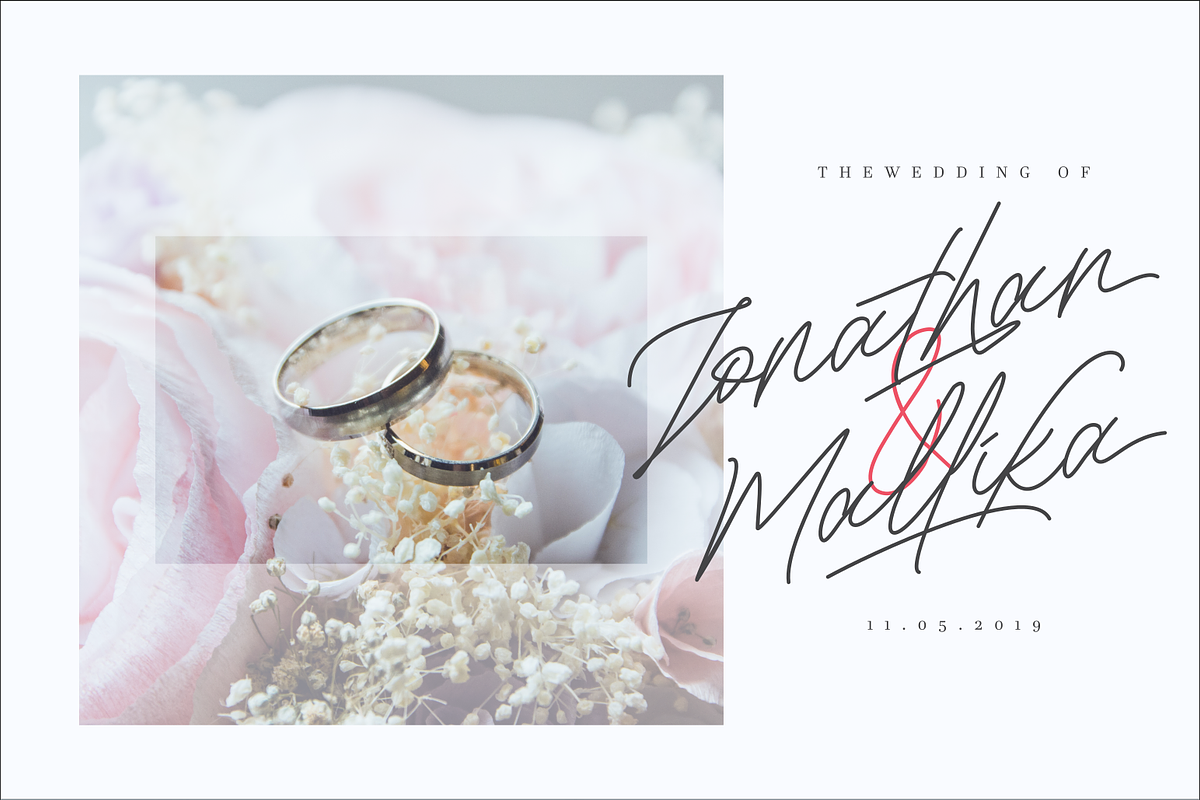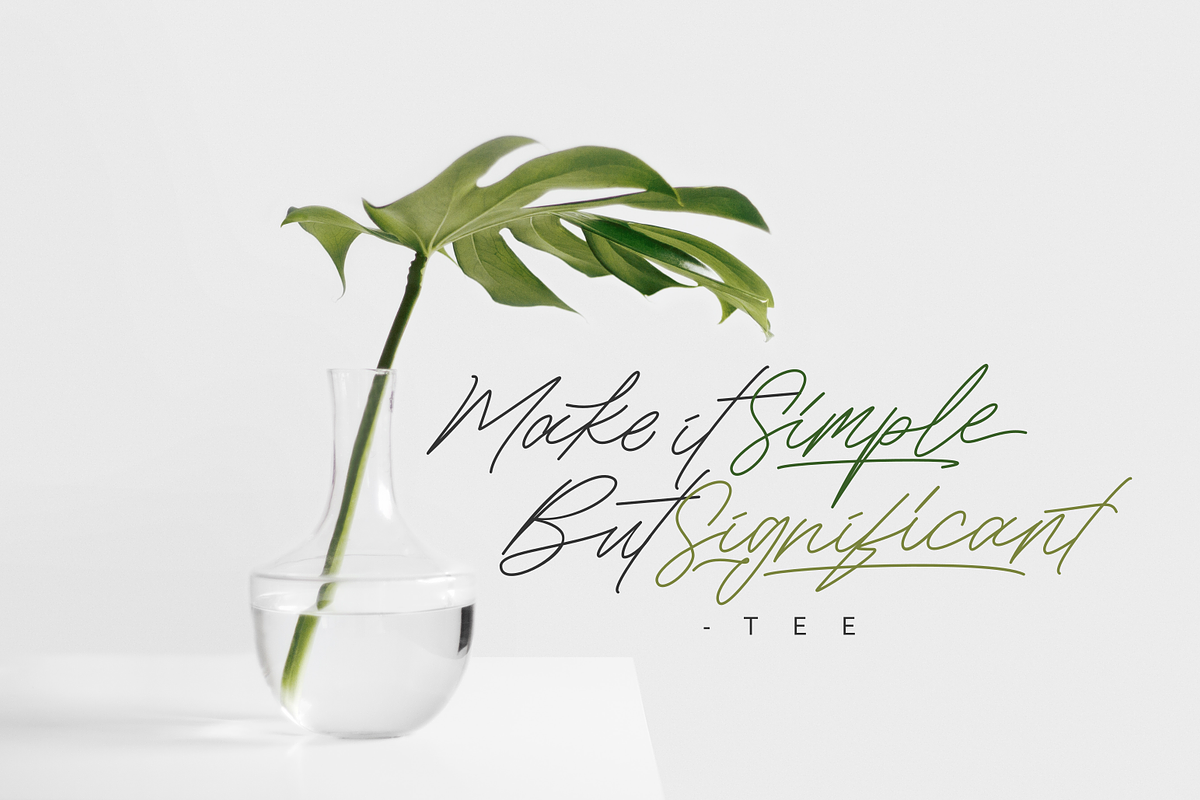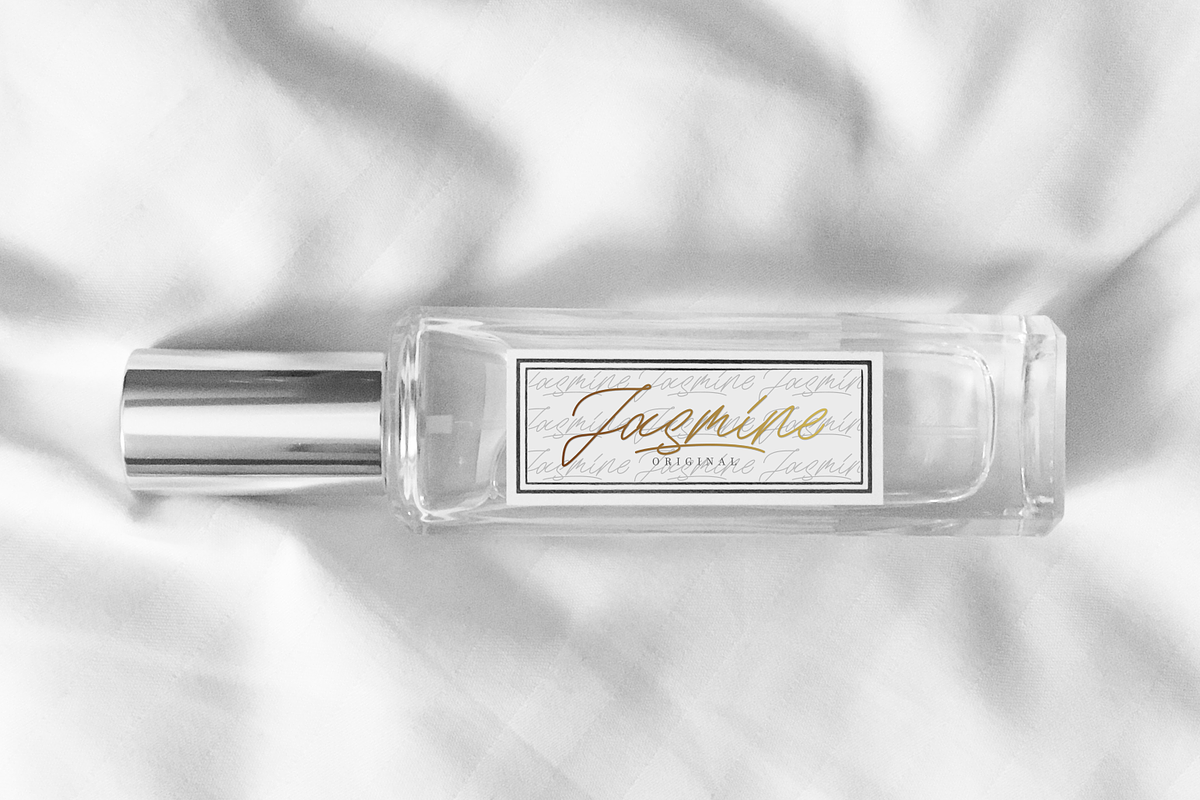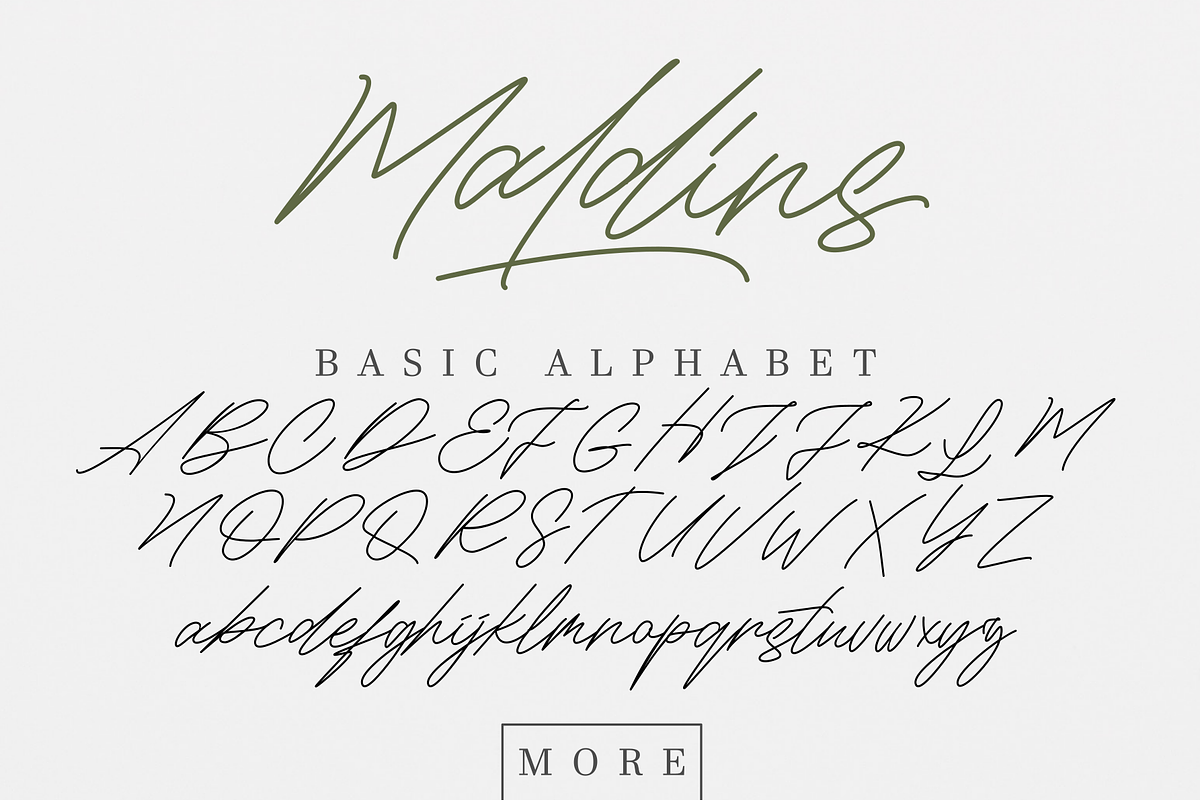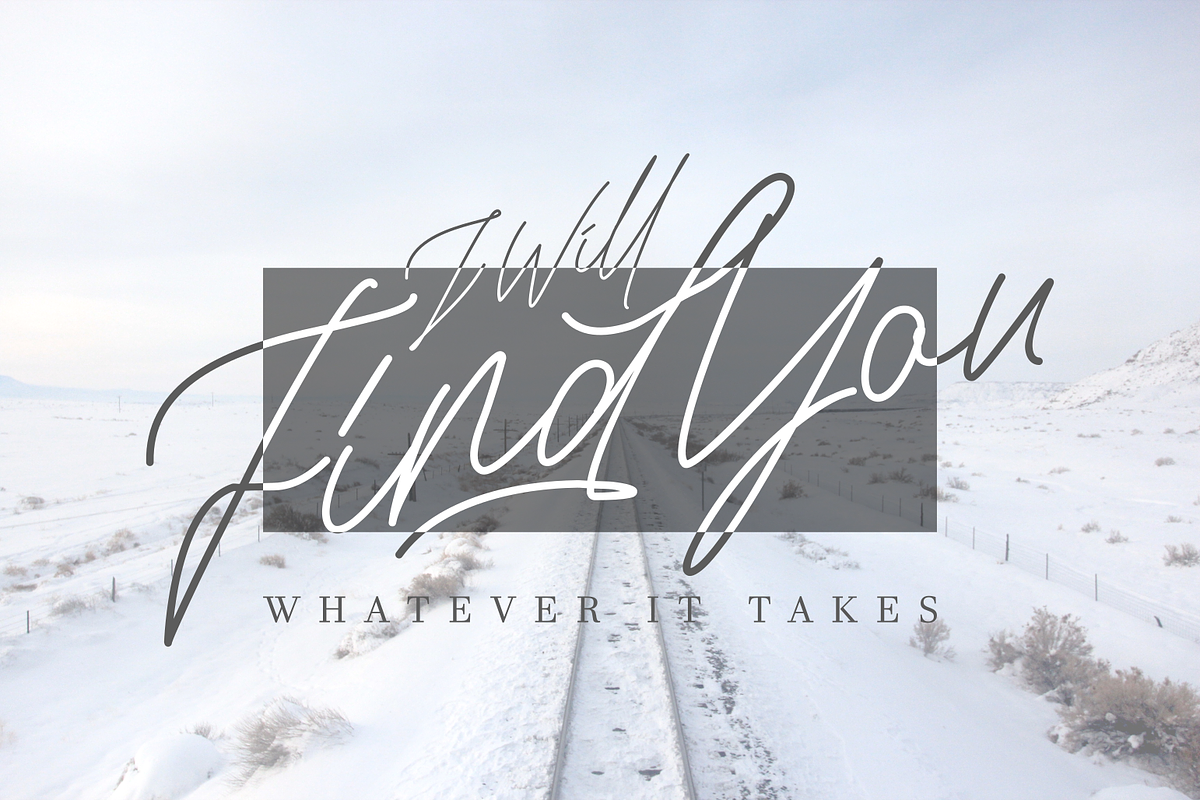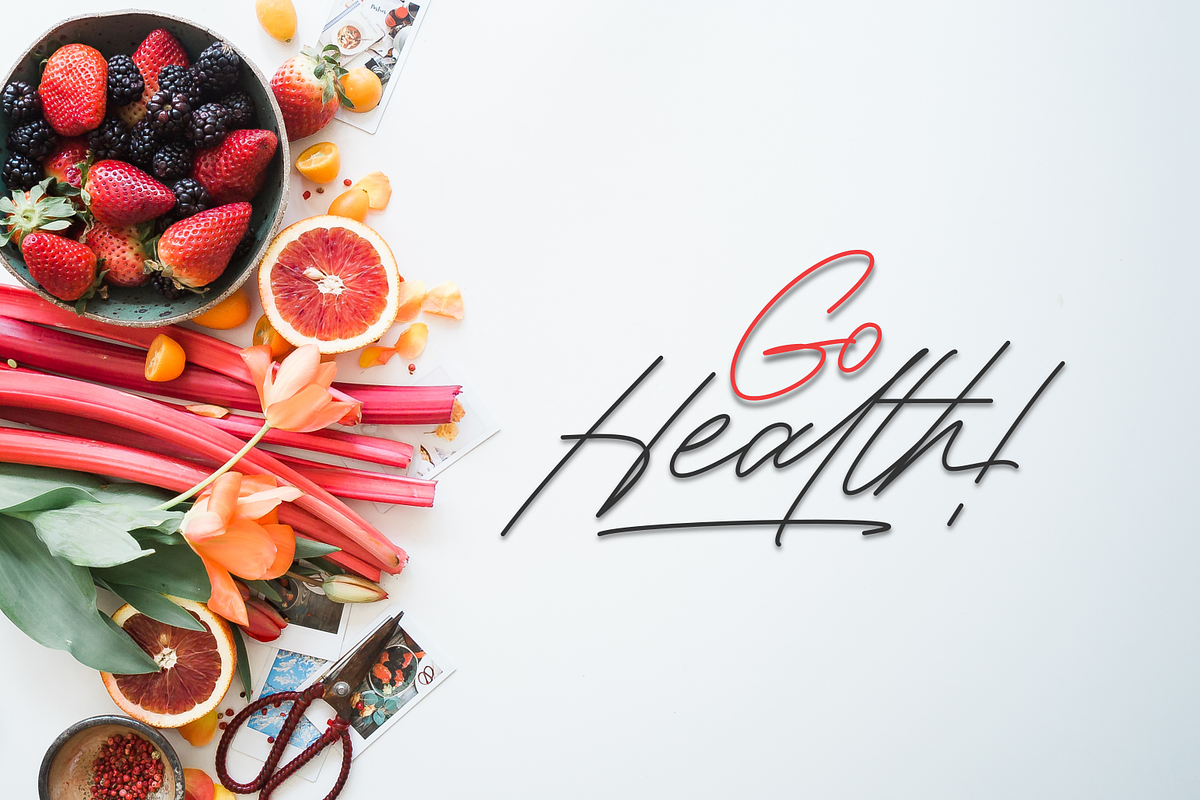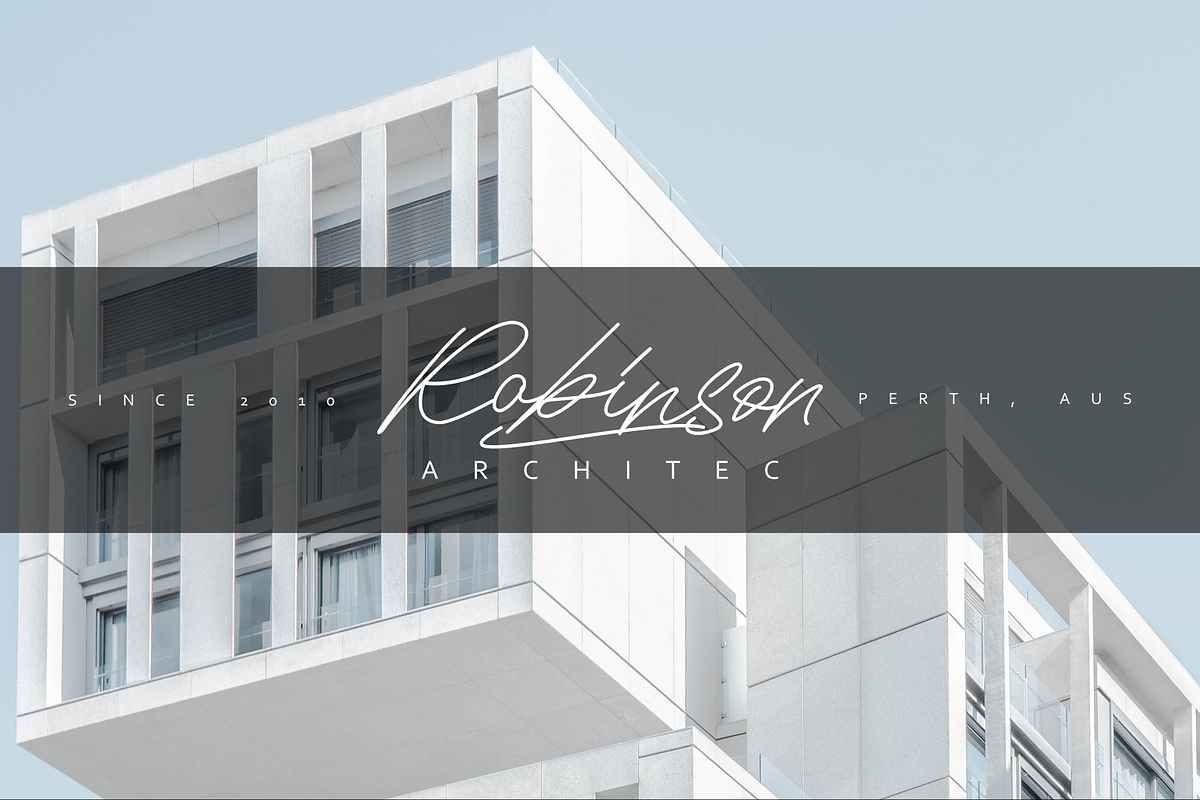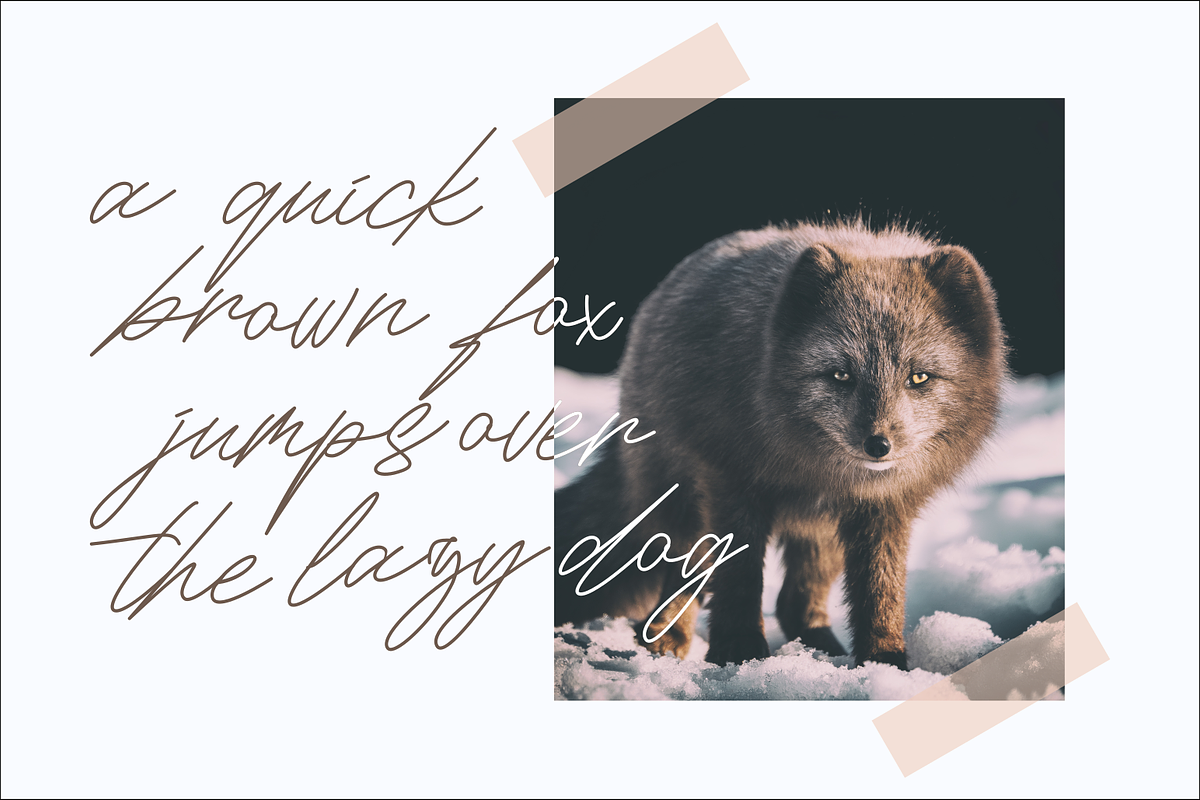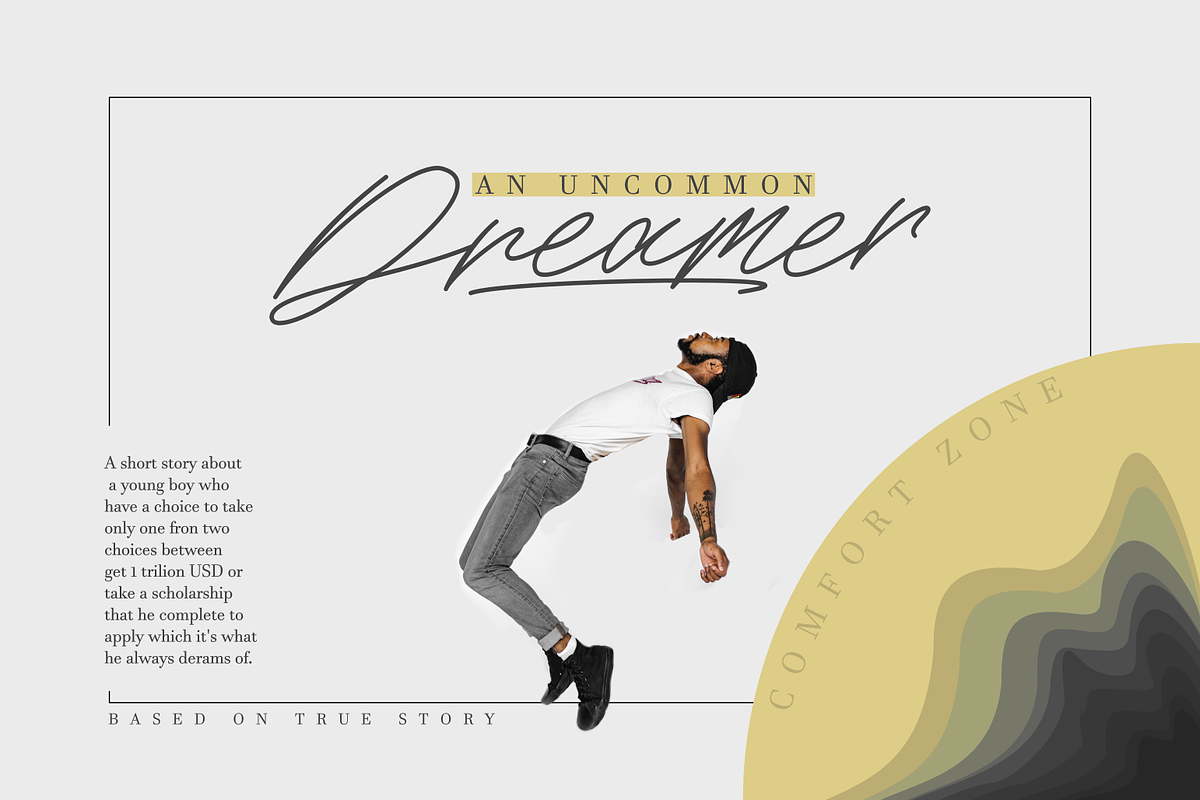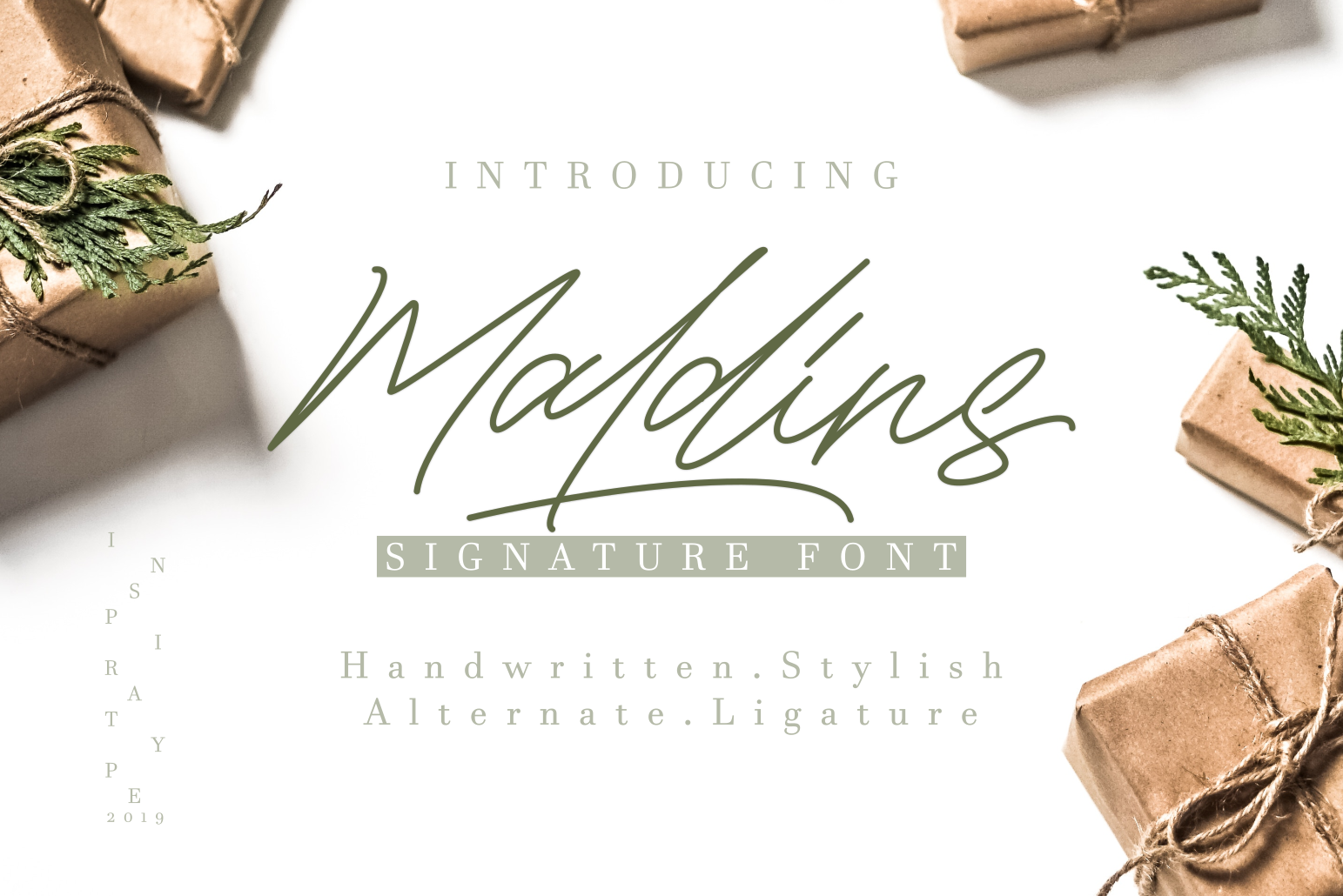
Maldins - Stylish Signature Font
"Maldins" is a font display that is made by hand, inspired by classic posters.
comes with uppercase, lowercase, numerals, punctuations and so many variations on each character include OpenType alternates, common ligatures and also additional swash to let you customize your designs. Perfect to use for Logotype, Letterhead, Poster, Apparel Design, Label and etc.
OPENTYPE FEATURES
- Contextual Alternates
- All Alternates